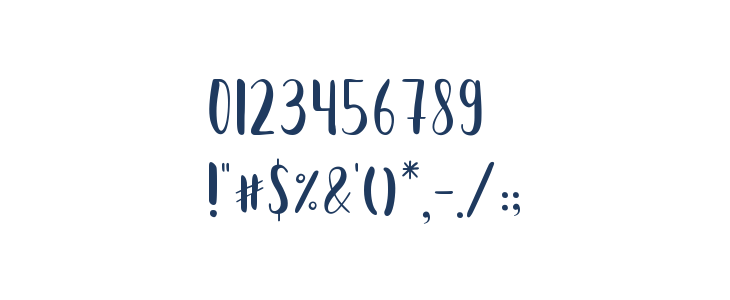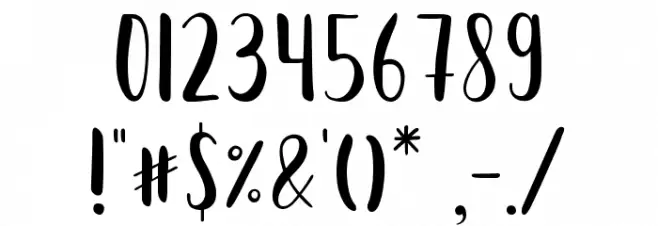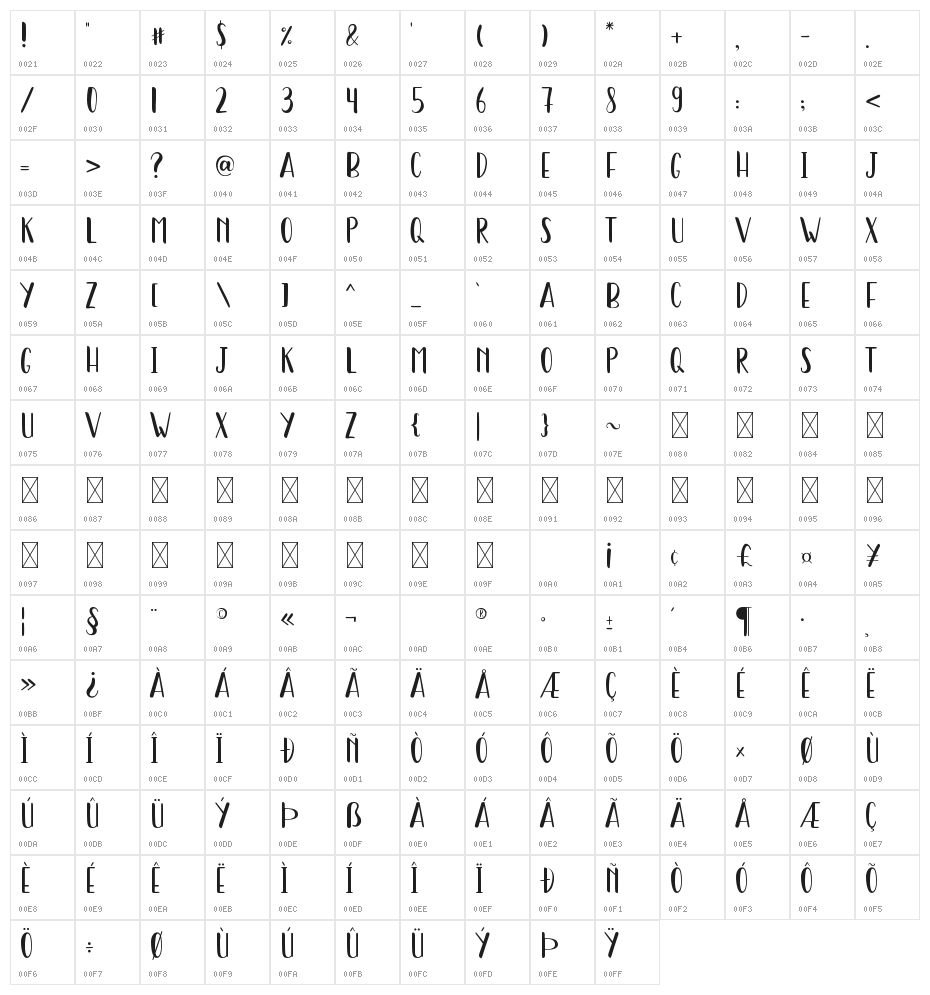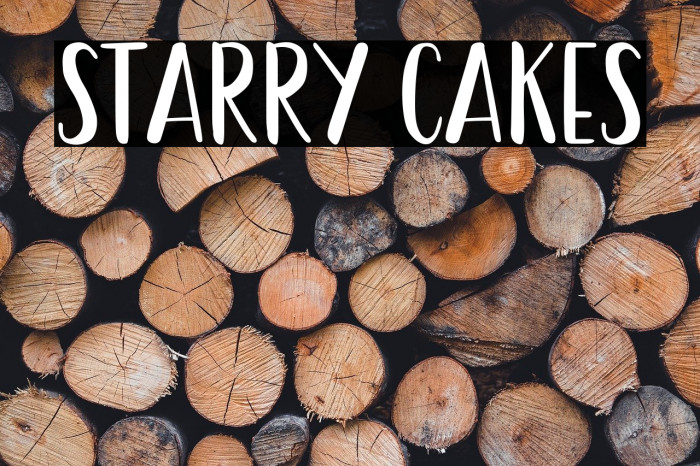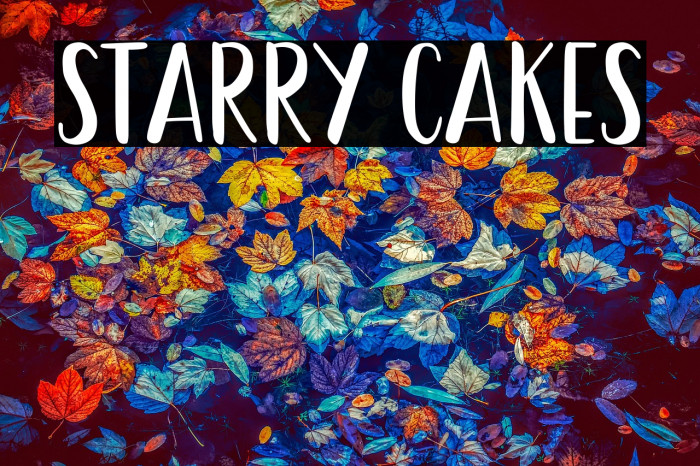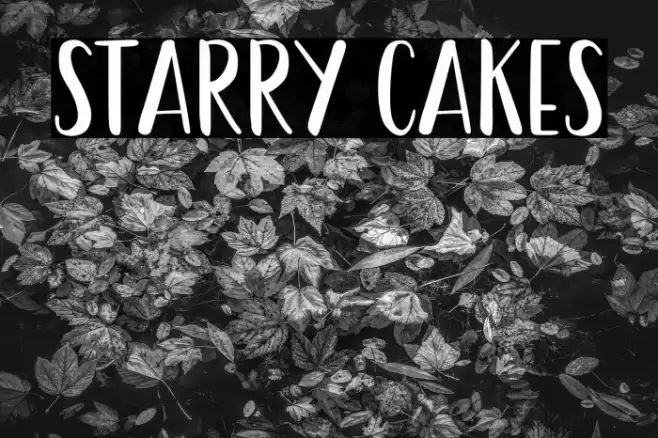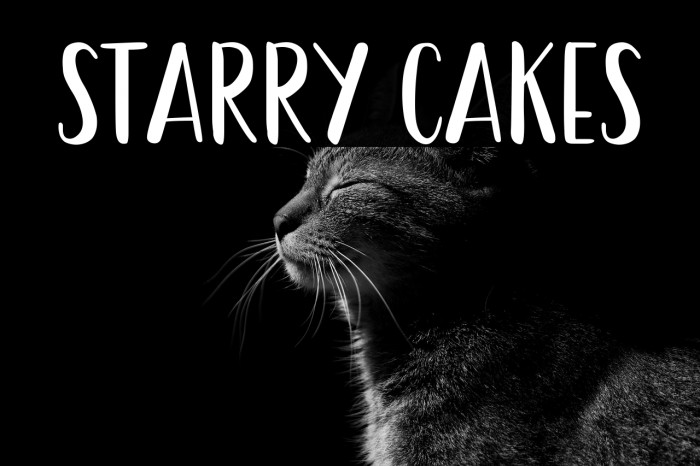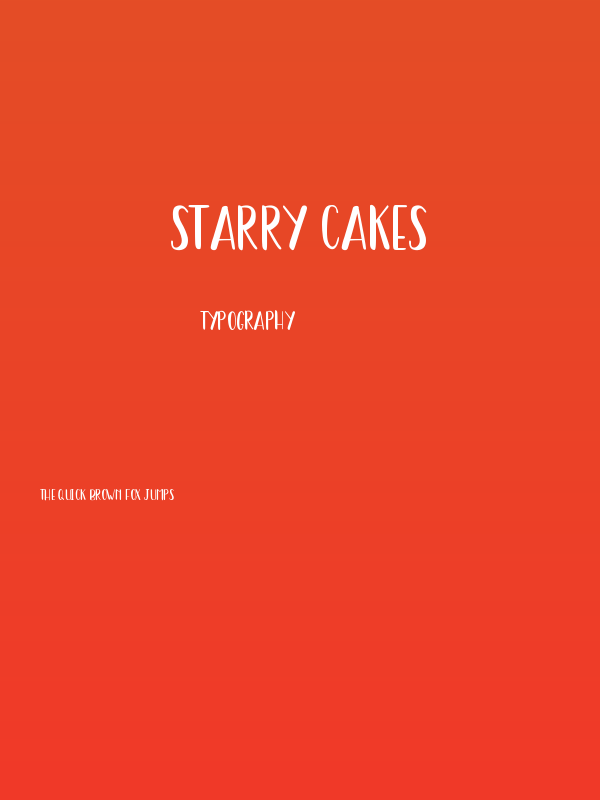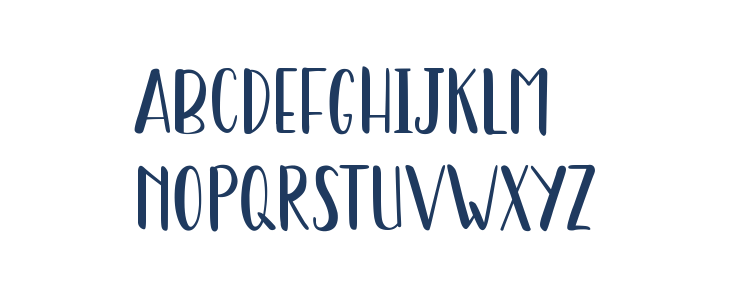
This font features a playful and whimsical style, characterized by its tall, narrow letters with a slight slant. The strokes are smooth and consistent, giving it a friendly and approachable appearance. The uppercase and lowercase letters maintain a uniform height, which adds to its cohesive look. The numbers and special characters are designed to match the overall aesthetic, making it versatile for various uses. The font's unique charm makes it suitable for creative projects that require a touch of personality.
| Proposed Projects | Ideal for children's books, greeting cards, playful branding, and creative posters. |